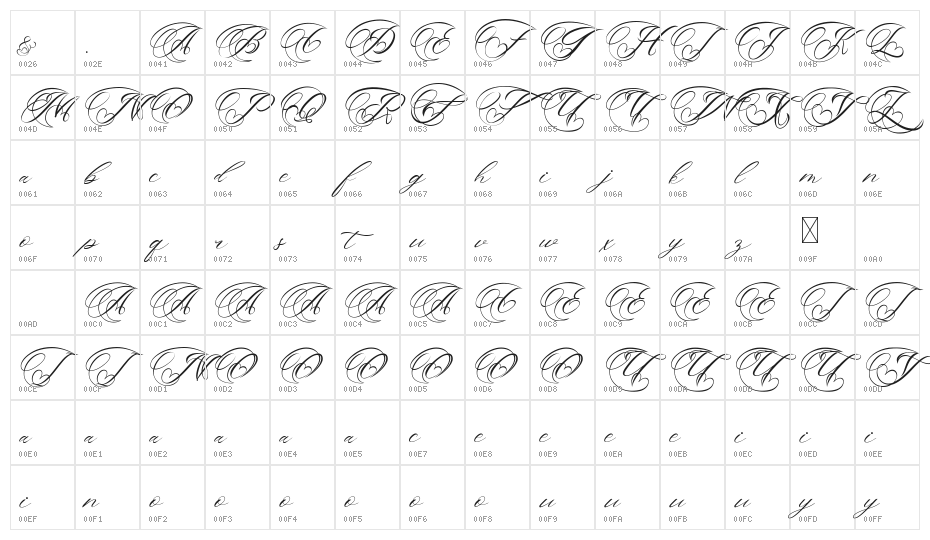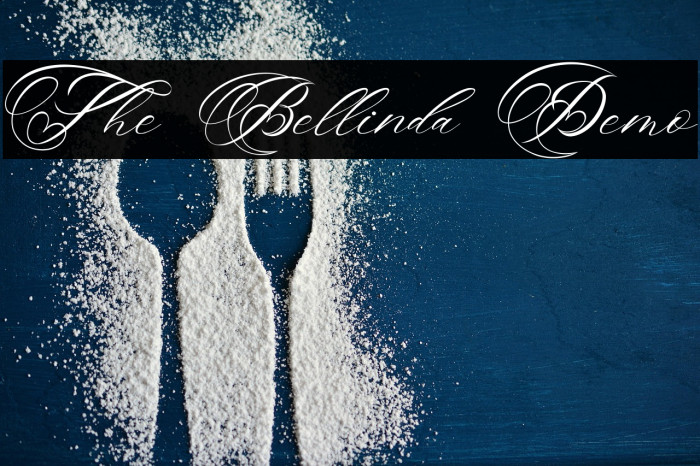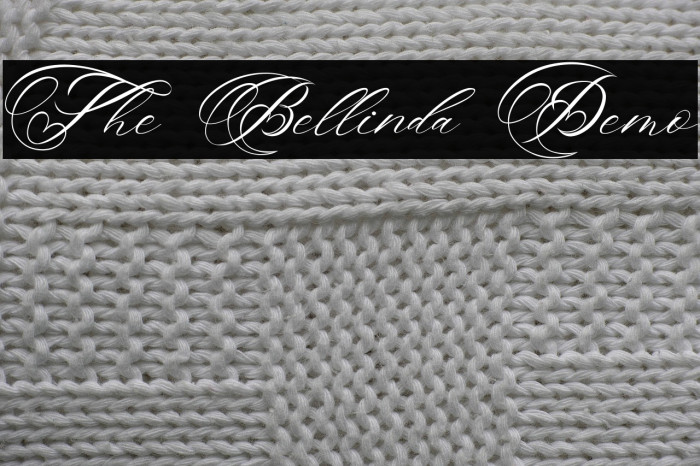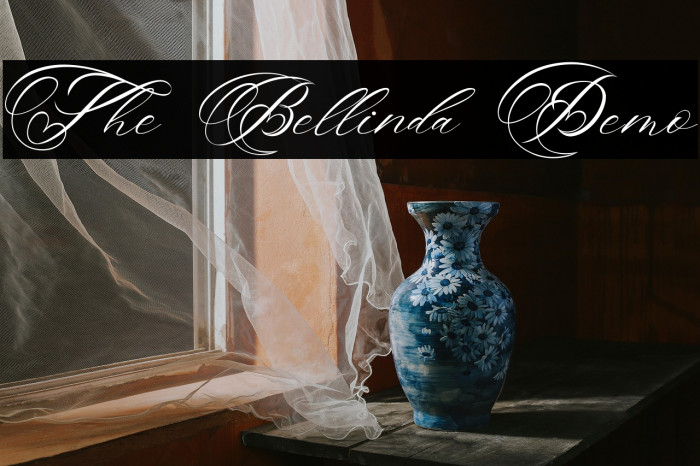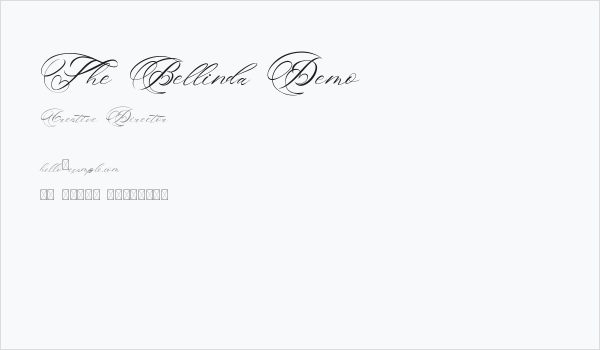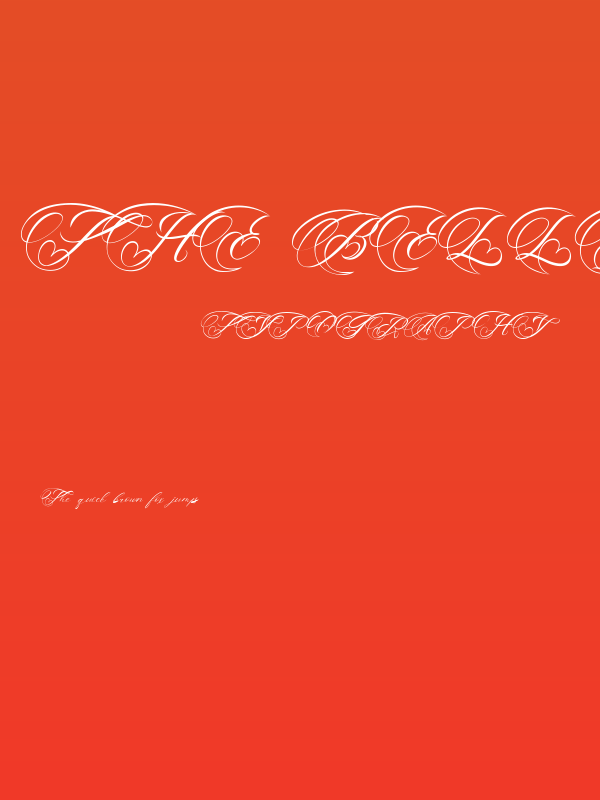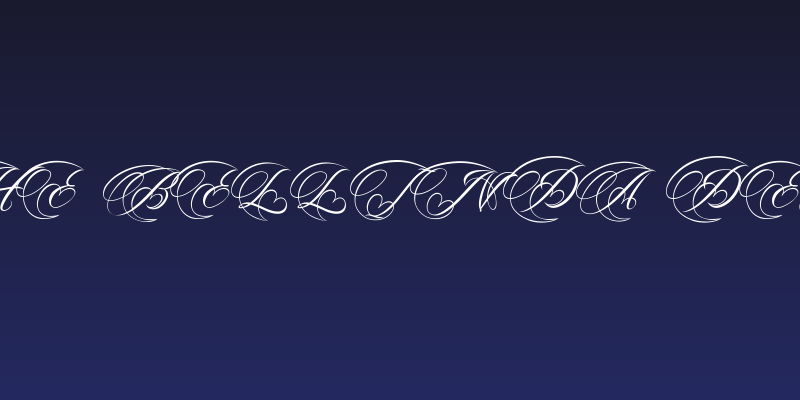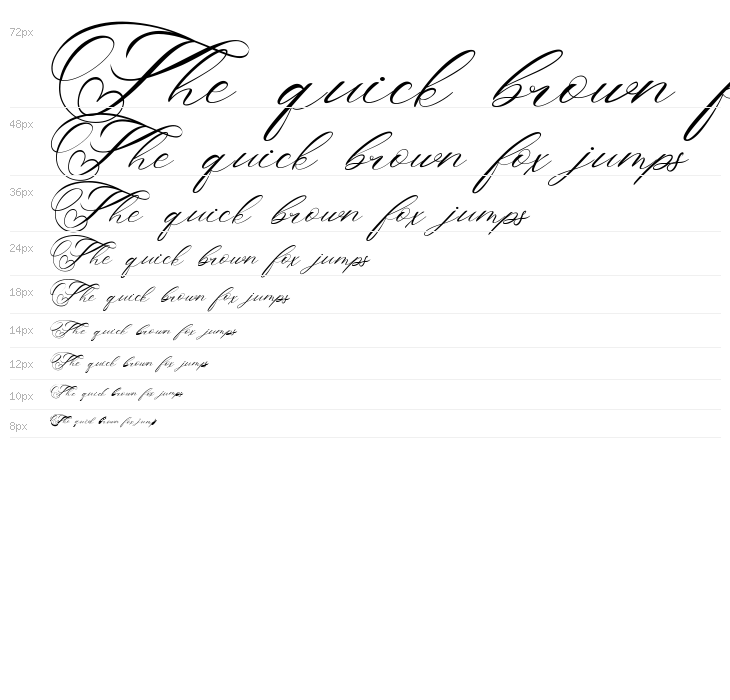
The Bellinda Demo Font
The Bellinda Demo Description
This elegant script font features intricate swirls and flourishes, creating a sense of sophistication and grace. The uppercase letters are adorned with elaborate loops, making them ideal for decorative purposes. The lowercase letters maintain a fluid and cursive style, enhancing readability while preserving the font's artistic flair. The overall design is reminiscent of classic calligraphy, with a modern twist that adds versatility. This font is perfect for projects that require a touch of elegance and refinement, such as wedding invitations, luxury branding, and high-end product packaging.
| Proposed Projects | Ideal for wedding invitations, luxury branding, and high-end product packaging. |